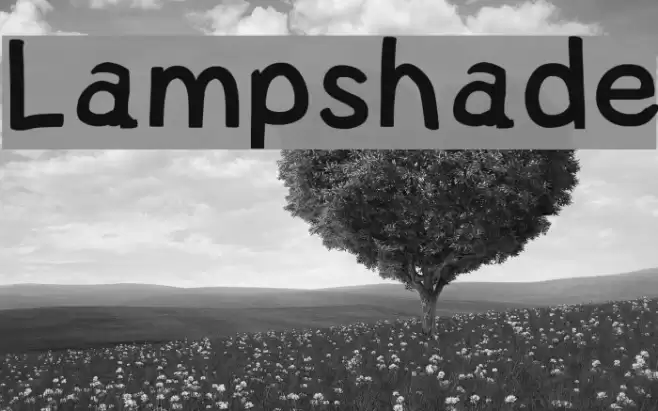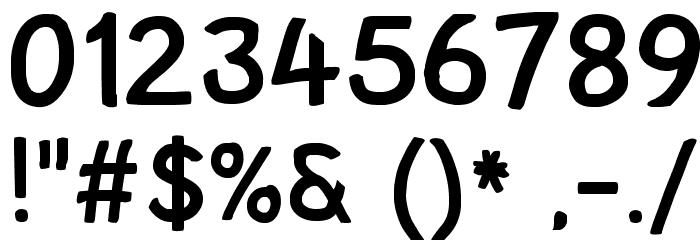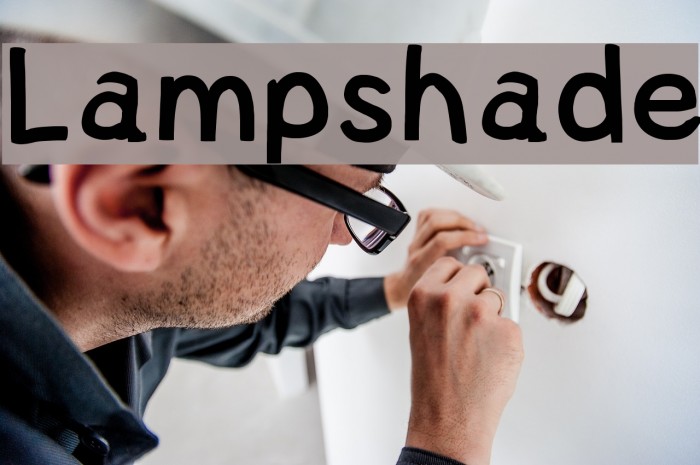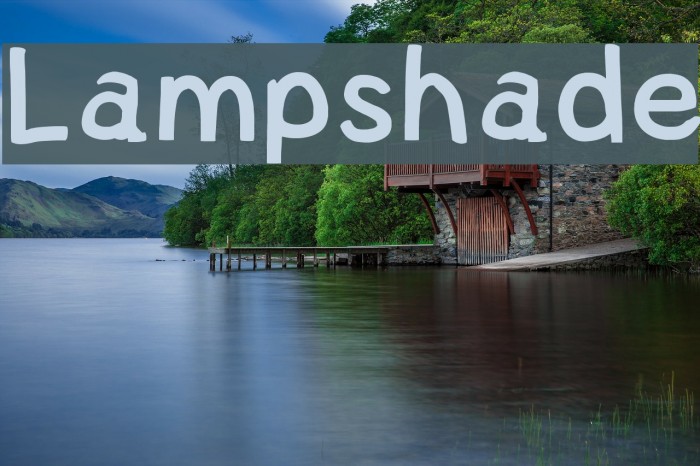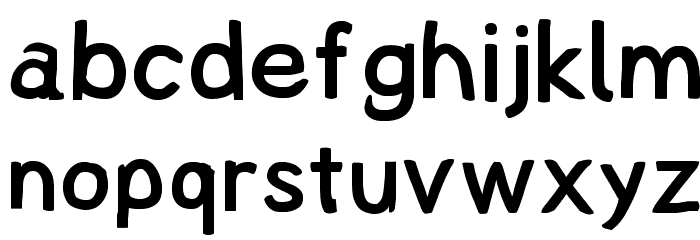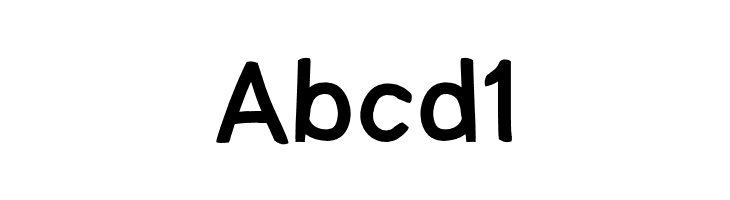
Lampshade Font
Lampshade Description
This font features a playful and rounded style, characterized by its bold and friendly appearance. The letters are slightly irregular, giving it a hand-drawn feel that adds a touch of whimsy. The uppercase and lowercase letters maintain a consistent weight, with rounded edges that soften the overall look. The numerals are clear and easy to read, matching the playful style of the alphabet. Special characters are well-integrated, maintaining the same rounded and bold characteristics. This font is ideal for projects that require a fun and approachable aesthetic.
A playful, rounded font with a bold, hand-drawn appearance from Uncategorized fonts.
- Proposed Projects: Ideal for children's books, playful branding, casual invitations, and creative posters.
- Overall Style: Playful